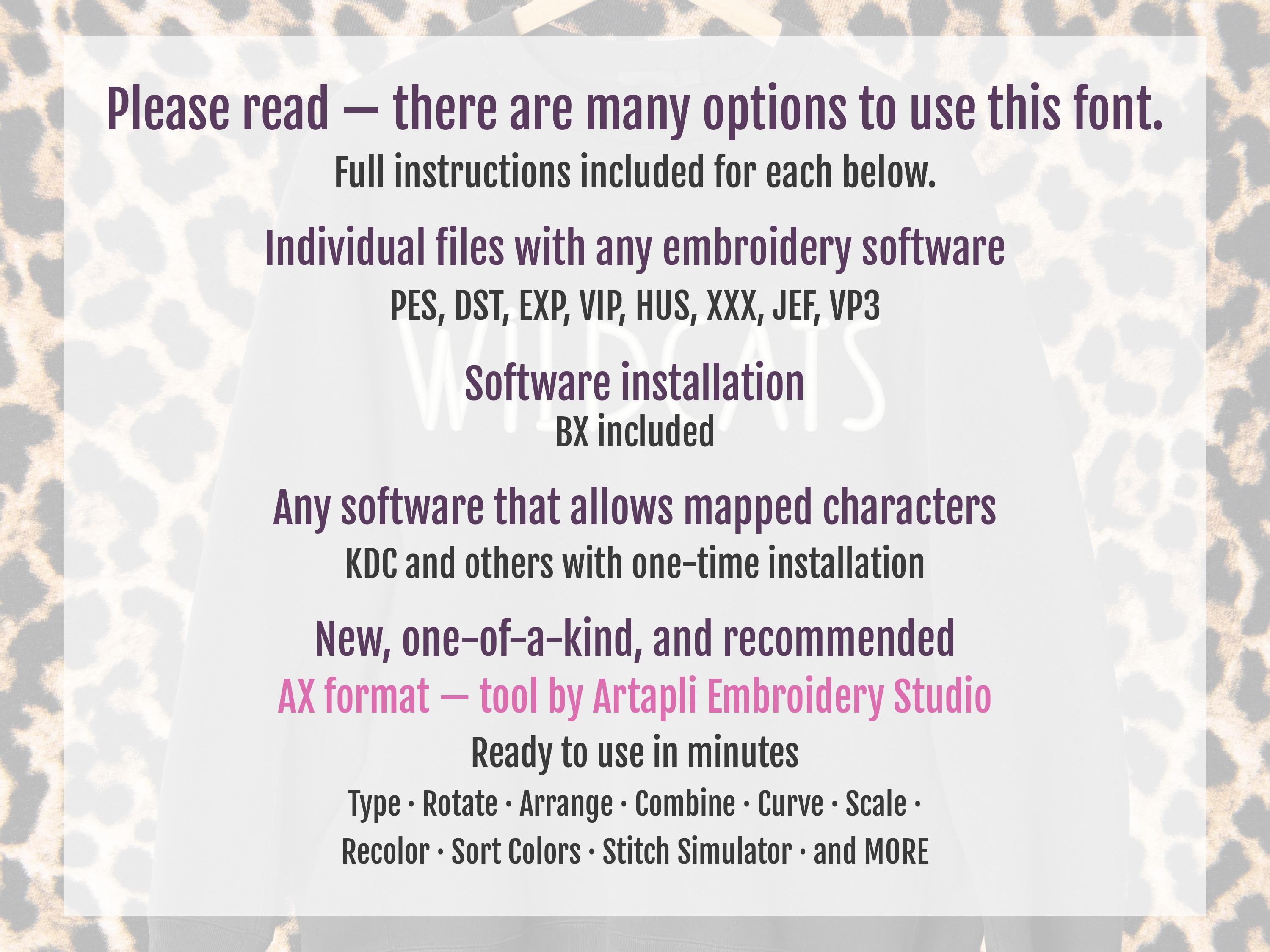
Puff Wildcats Embroidery font machine embroidery designs 3D raised Puffy Foam Wild alphabet monogram Block Font 1.5. 1.8, 2.2, 2.6, 3 inch, BX included
Whole alphabet A-Z uppercase and numbers 0-9.
For this design puffy foam is required. I'm using Gunold puffy foam thickness 3 mm.